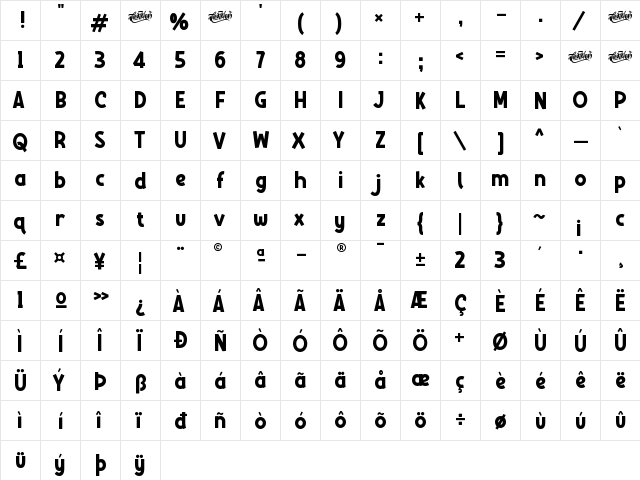
HUBBY BUNNY Regular
| Designer | Almarkhatype 2020 | Abdul Malik |
Design Context for HUBBY BUNNY Typeface
HUBBY BUNNY is a composed and adaptable typeface that performs quietly and consistently across a wide range of design contexts.